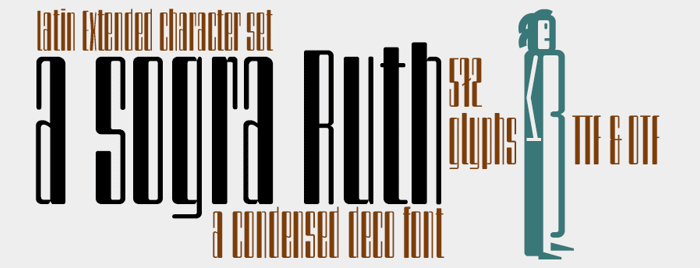
a sogra Ruth Font
Extra-condensed Style
Sans-serif style art deco, ultra-condensed with high contrast between antlers and rounded at the corners. Font display to save space on long or advertising pieces which seeks a modernist style titles.